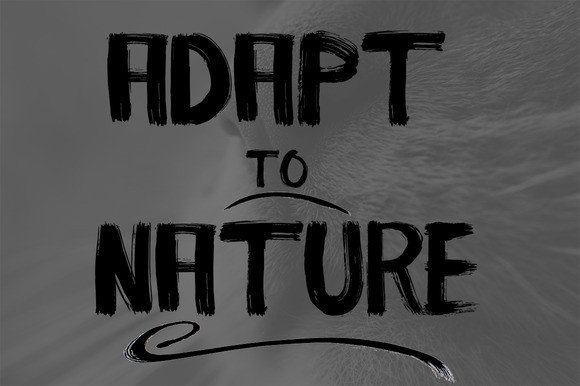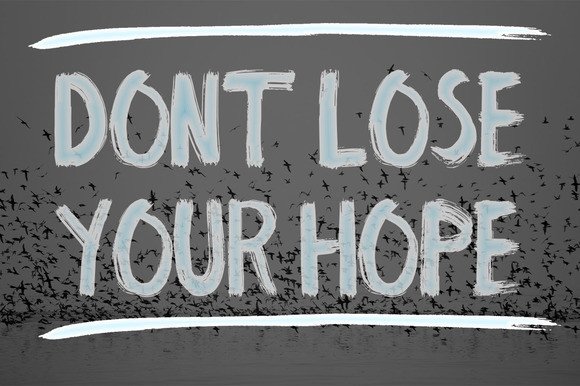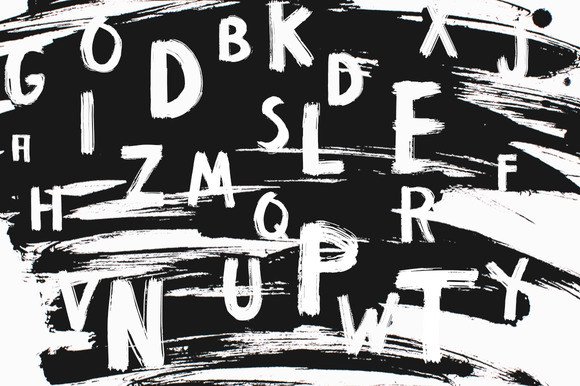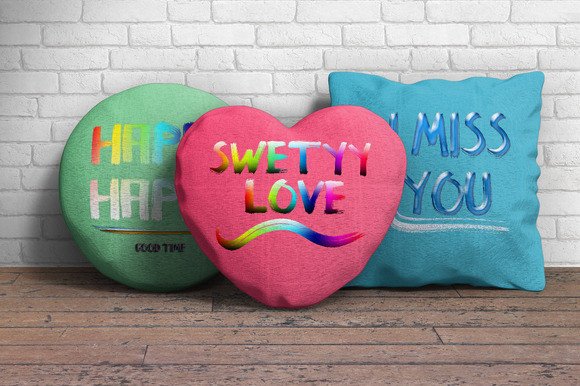
Introducing December Brush Font: Add a Personal Touch to Your Designs
Are you looking for a typeface that can add a personal touch to your designs? Look no further than the December Brush Font. This cool, easy-to-use font is perfect for creating designs that require a unique and creative flair. In this article, we’ll take a closer look at the December Brush Font, its features, and how you can use it to elevate your designs.
What is December Brush Font?
December Brush Font is a beautiful, hand-brushed typeface that is designed to give your designs a personal touch. It is a versatile font that can be used for a wide range of design projects, from logo marks and posters to t-shirt designs and more. The font is easy to use and comes with a range of features that make it perfect for designers and crafters.
Key Features of December Brush Font
So, what makes December Brush Font so special? Here are some of its key features:
- Hand-brushed design: The December Brush Font has a unique, hand-brushed design that gives it a personal and creative feel.
- Easy to use: The font is easy to use and comes with a simple, intuitive design that makes it perfect for designers of all levels.
- Versatile: The December Brush Font is versatile and can be used for a wide range of design projects, from logo marks and posters to t-shirt designs and more.
- Cool and modern look: The font has a cool, modern look that is perfect for designs that require a fresh and creative feel.
How to Use December Brush Font
Using the December Brush Font is easy. Here are some tips to get you started:
- Logo design: Use the December Brush Font to create unique and creative logo marks that stand out from the crowd.
- Poster design: The font is perfect for poster design, adding a personal touch to your posters and flyers.
- T-shirt design: Use the December Brush Font to create custom t-shirt designs that are perfect for personal use or as a gift.
- Social media graphics: The font is also perfect for social media graphics, adding a creative and personal touch to your posts and stories.
Benefits of Using December Brush Font
So, why should you use the December Brush Font? Here are some benefits:
- Unique designs: The December Brush Font allows you to create unique and creative designs that stand out from the crowd.
- Easy to use: The font is easy to use, even for designers who are new to typography and design.
- Time-saving: The December Brush Font saves you time and effort, allowing you to create professional-looking designs in minutes.
| Font Name | December Brush Font |
| Author | Only The Originals |
In conclusion, the December Brush Font is a cool, easy-to-use typeface that is perfect for designers and crafters who want to add a personal touch to their designs. With its hand-brushed design, versatility, and ease of use, this font is perfect for a wide range of design projects, from logo marks and posters to t-shirt designs and more. Whether you’re a professional designer or a crafter, the December Brush Font is a must-have font that will take your designs to the next level.